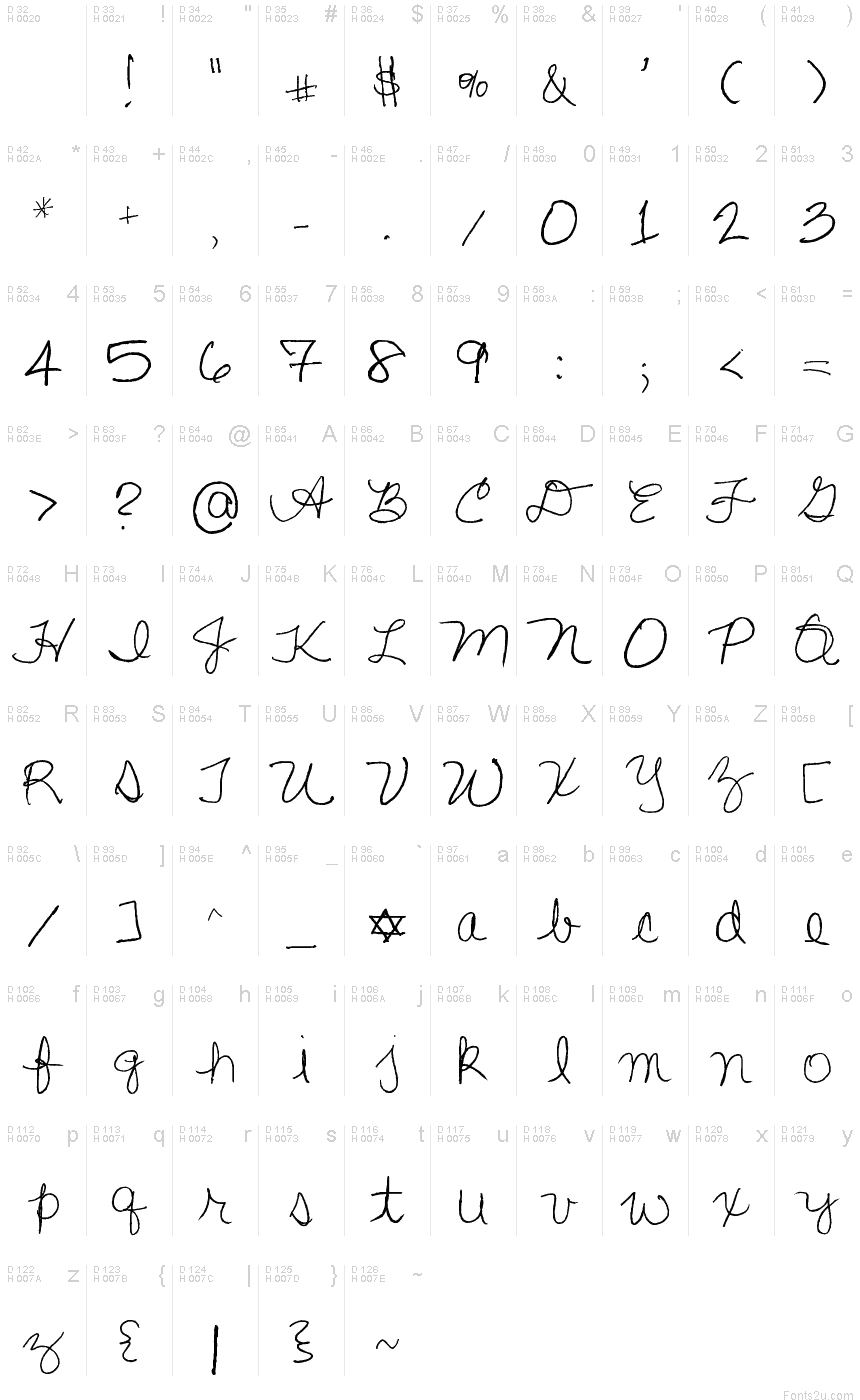
Lisa's First Class by Max Infeld of Xerographer is a free handwritten font with long, looping strokes and a restless baseline. Fine lines cross freely across the uneven forms.
Designers seeking an unruly, personal look can use it for indie music artwork and youth event posters. It also suits diary-themed publishing, echoing marginal notes or hurried entries. On casual merchandise, the sweeping loops can become part of the graphic pattern rather than simple lettering.